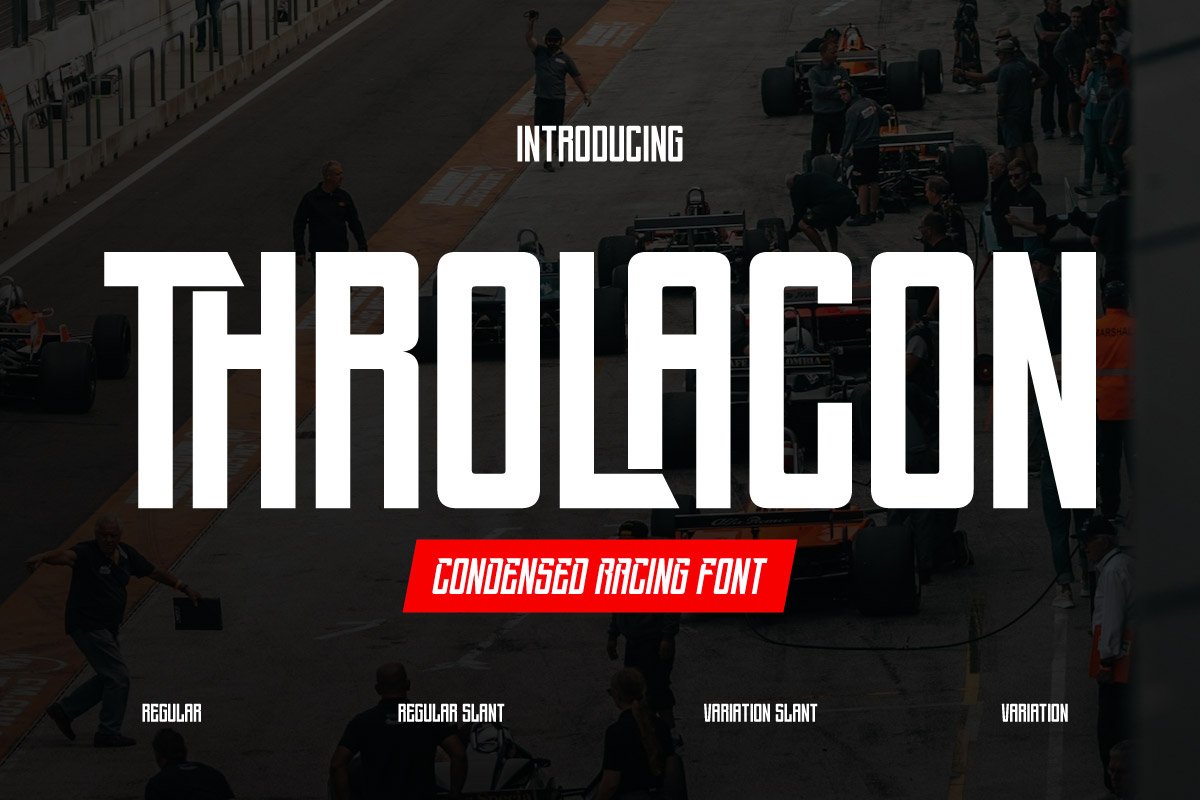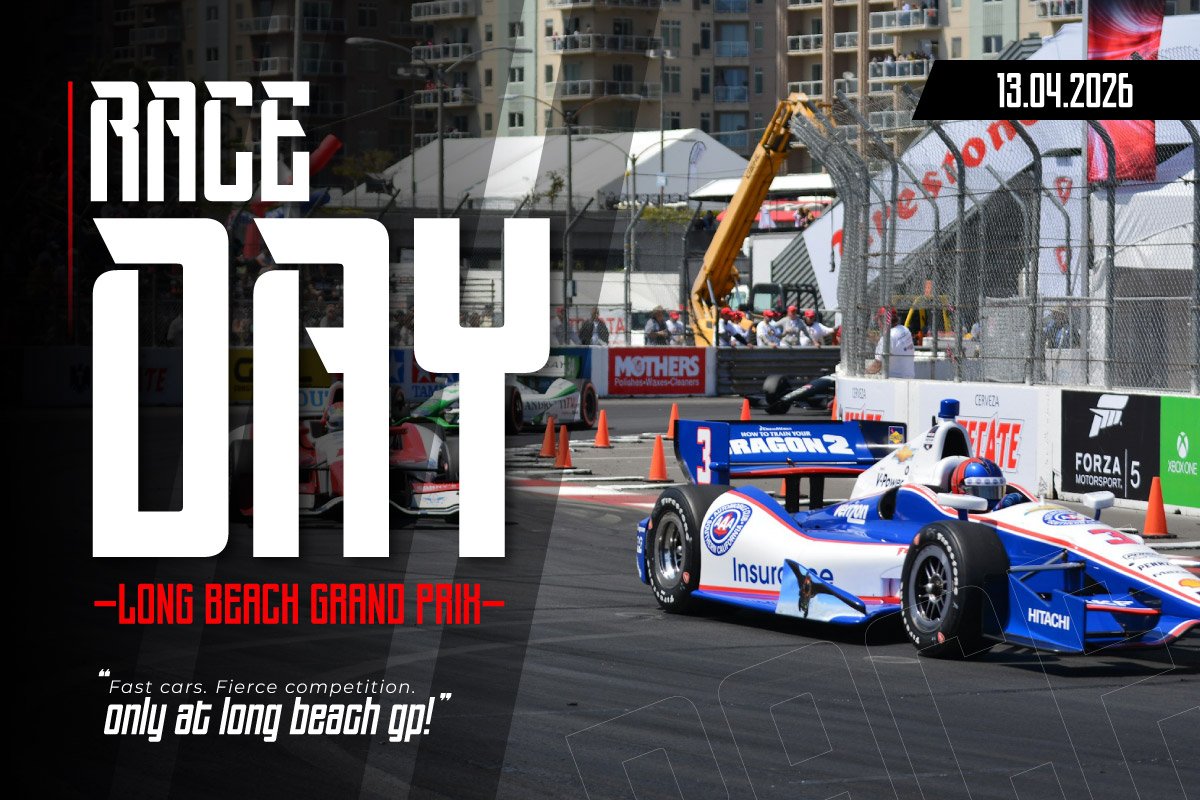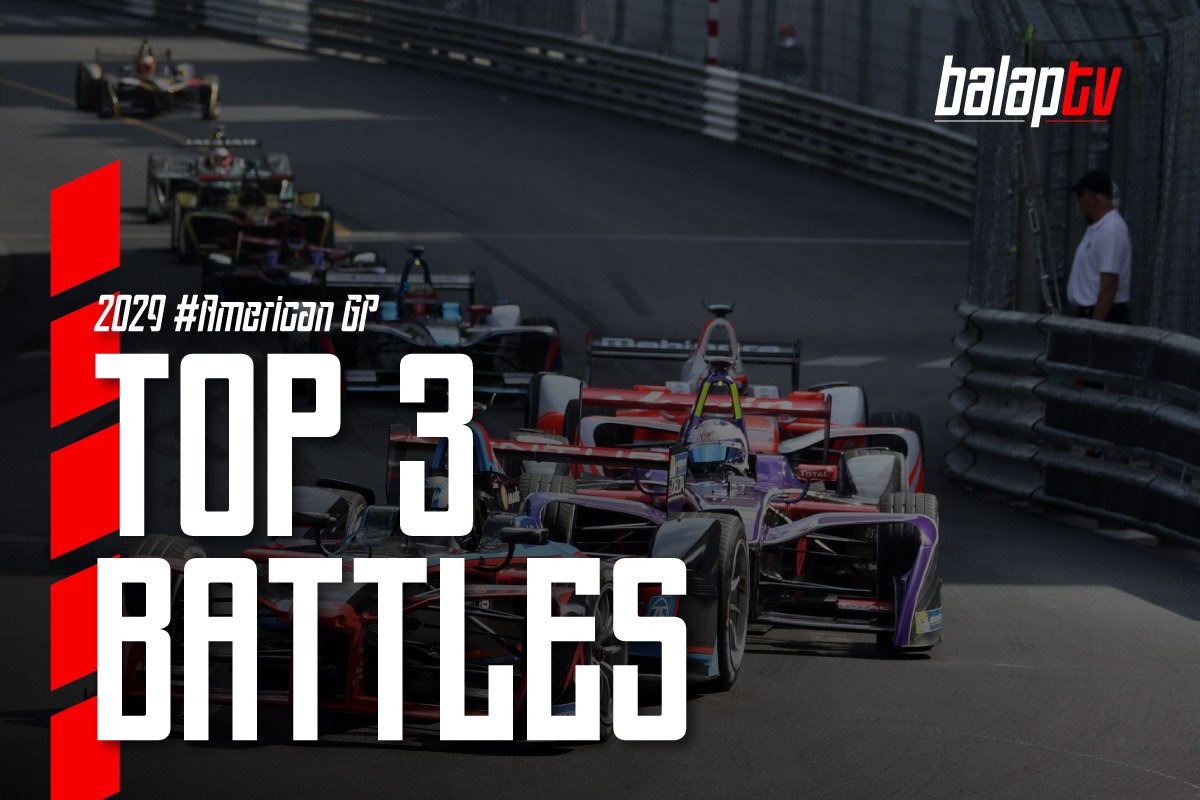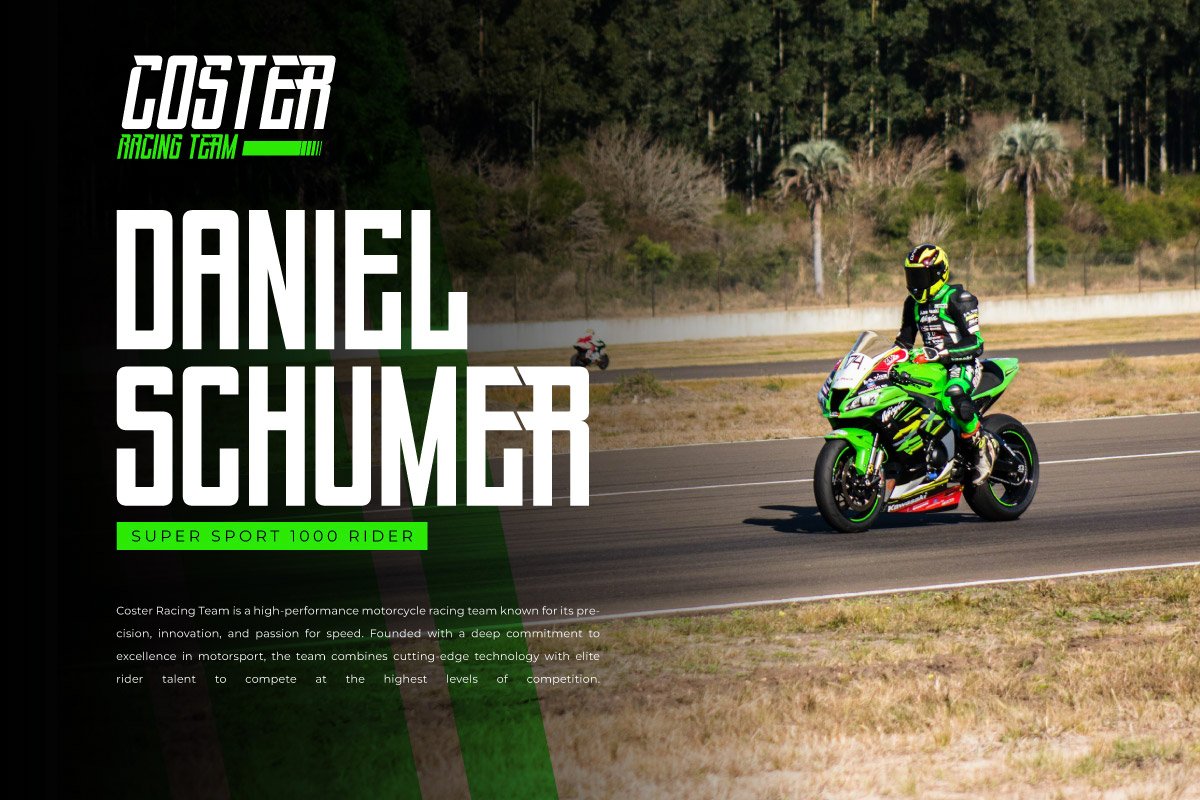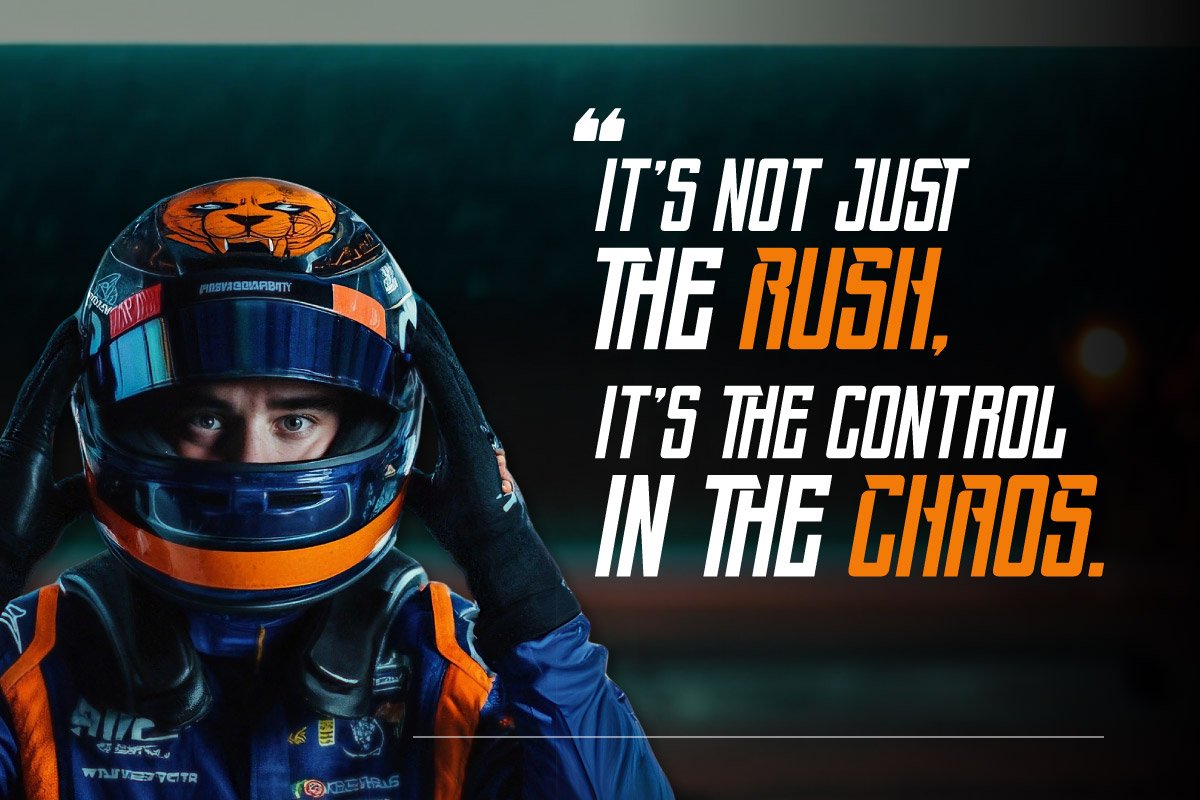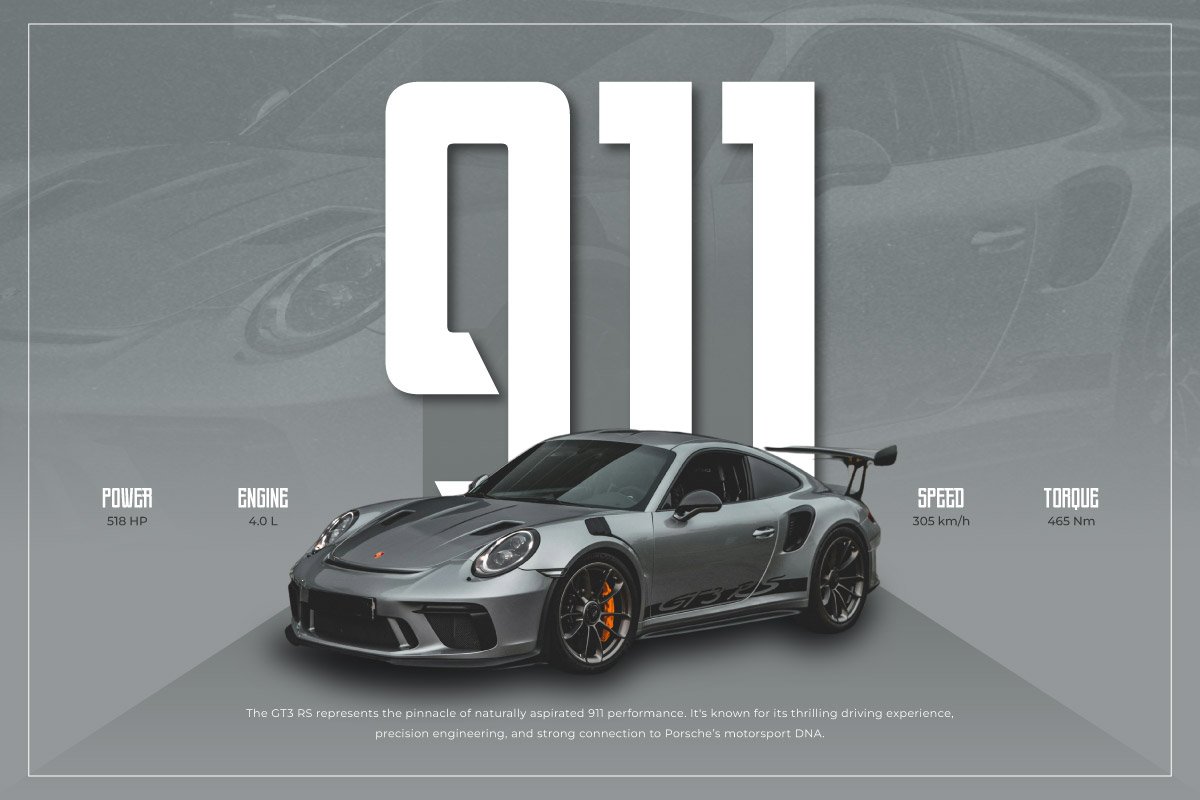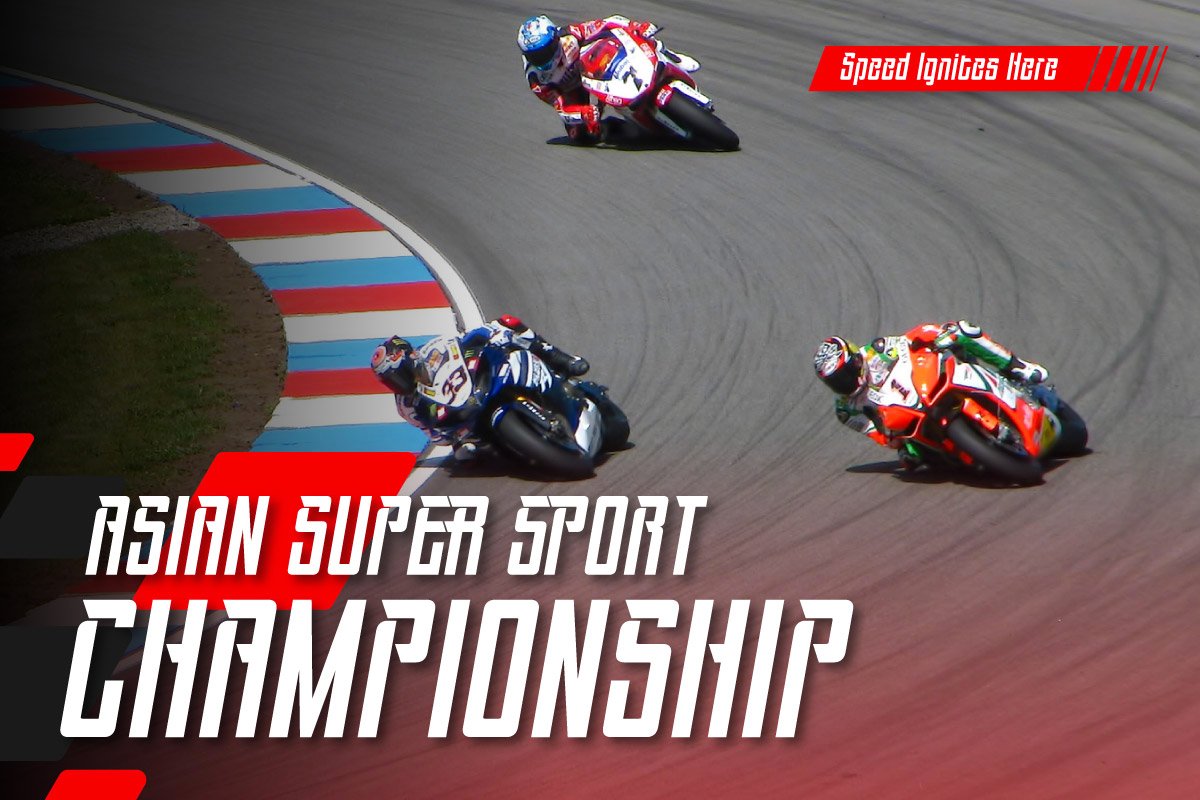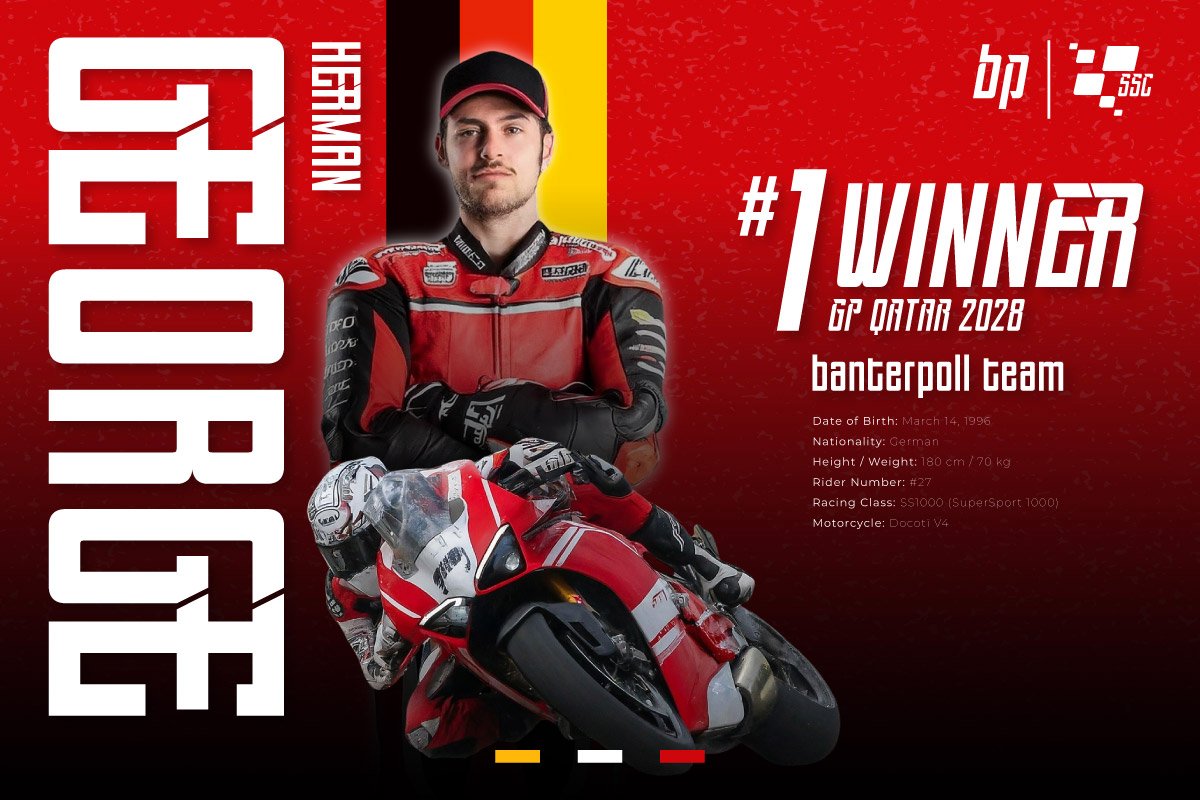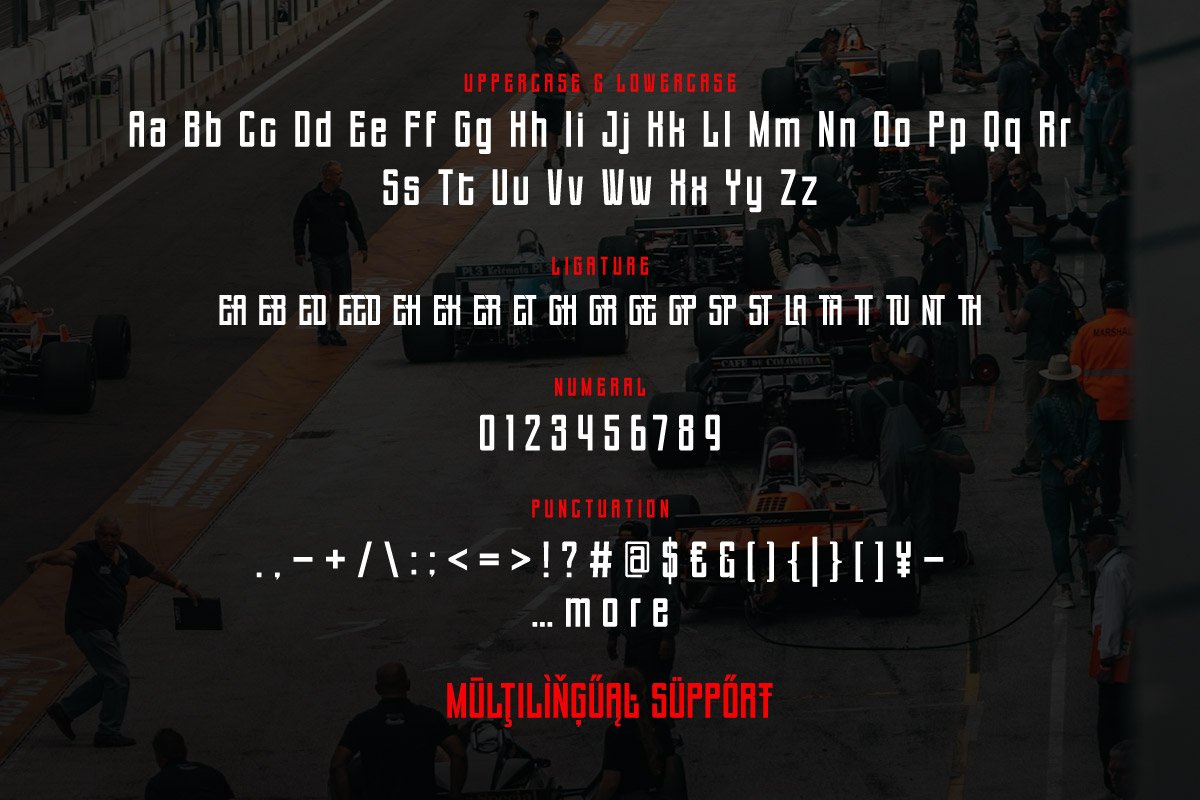
5. Throlacon – Condensed Racing Font
Throlacon – Condensed Racing Font
Throlacon is a bold and high-speed condensed font designed to bring adrenaline and motion into your typography. With its sharp angles, tight spacing, and aerodynamic style, Throlacon is perfect for racing themes, automotive brands, sports gear, action-packed movie titles, and speed-focused promotions.
Its condensed proportions allow you to make the most of limited space while still delivering a punch of energy and legibility. Whether you’re creating event posters, branding race teams, or designing apparel for motorsport enthusiasts, Throlacon provides that edge of velocity and intensity that sets your design apart.
Throlacon isn’t just a font—it’s a statement of speed, precision, and performance. Put your message in the fast lane.